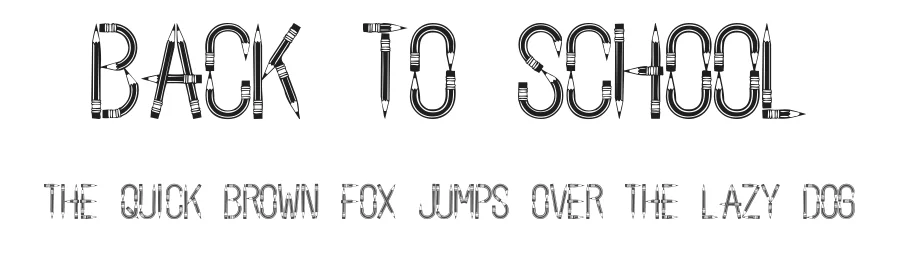
About Hoecake Font
| Designer | Vilogsign |
Hoecake Font is a decorative font that shines as a display or heading face. Pair it with a clean sans-serif or serif font for body text β the contrast creates a clear hierarchy while the two styles stay balanced and easy to read.
Hoecake Font
by vilogsign